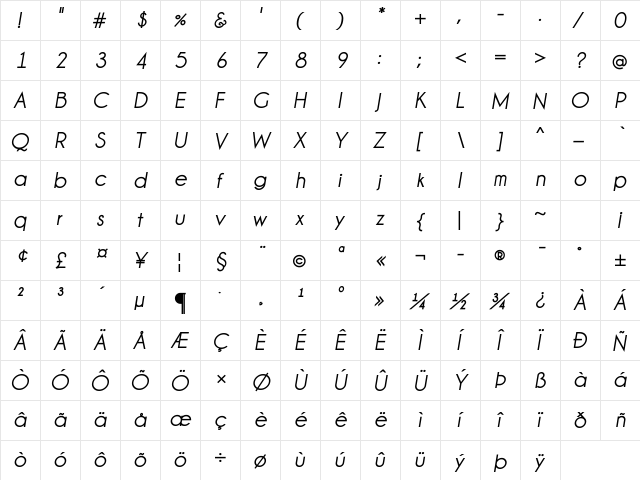
Champagne & Limousines Bold Italic Font Preview
Design Context for Champagne & Limousines Typeface
Champagne & Limousines offers clean, dependable letterforms without strong stylistic allegiance, making it a practical choice for designers who need flexibility. The slanted form adds forward momentum and visual energy. The heavy weight commands attention and anchors typographic hierarchies.
Pro Tip: Use Champagne & Limousines for emphasis, pull quotes, and subheadings where its slanted energy can add rhythm to the layout.